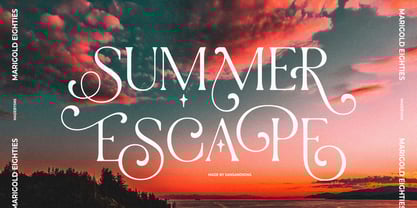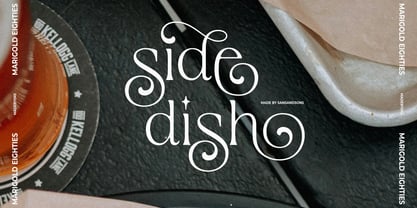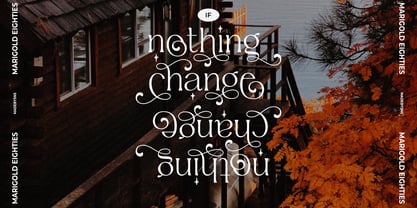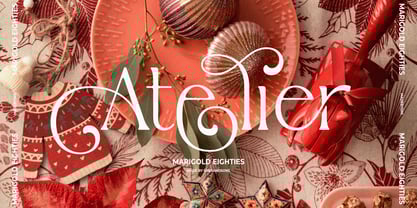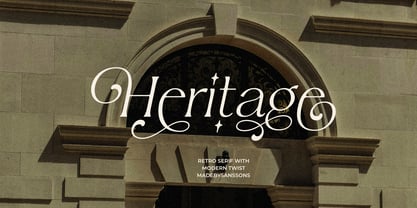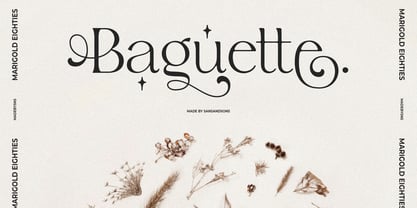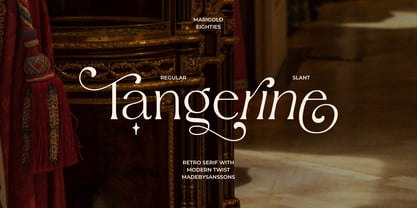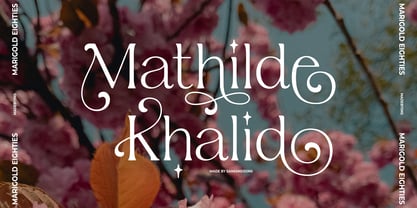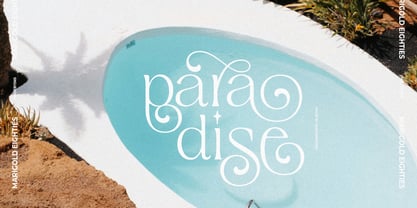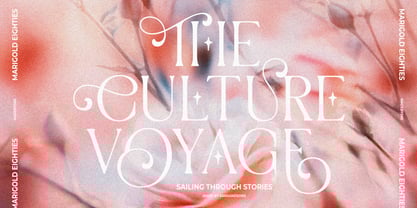
Marigold Eighties
by Sans And Sons
The Marigold Eighties Font Family was designed by Angga Suwista and published by Sans And Sons. Marigold Eighties contains 2 styles and family package options. More about this family
Meet Marigold Eighties — a retro serif font with a modern twist that’s as versatile as it is stylish.
With its sleek curves and unique alternate letters, Marigold Eighties brings a touch of classic elegance to any project while keeping things fresh and contemporary. Whether you’re working on branding, packaging, posters, or editorial layouts, this font adds just the right amount of charm and sophistication.
Retro yet timeless, Marigold Eighties is your go-to for designs that stand out. Stylish, effortless, and ready to make an impact.
Designers: Angga Suwista
Foundry: Sans And Sons